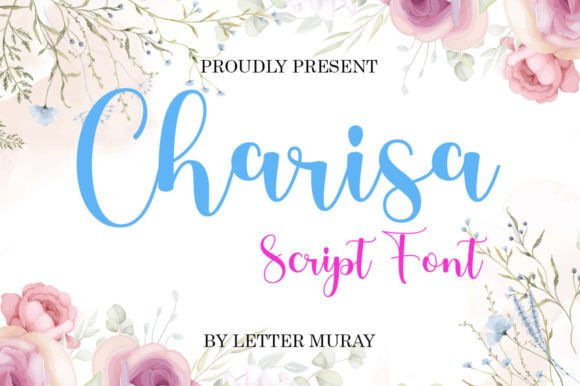
Introducing Charisa Font: The Epitome of Elegance and Versatility
In the realm of typography, few fonts manage to strike a balance between elegance, delicacy, and versatility. Charisa Font is one such gem that has captured the hearts of designers and crafters alike. This exquisite handwritten font is characterized by its flowing lines, beautiful characters, and impressive range of applications. In this article, we’ll delve into the world of Charisa Font, exploring its features, benefits, and uses, as well as provide valuable insights for designers and crafters looking to elevate their creative projects.
The Beauty of Charisa Font
Charisa Font is a delicate, elegant, and flowing handwritten font that exudes sophistication and refinement. Its well-balanced characters are meticulously crafted to create a harmonious visual experience, making it an ideal choice for a wide range of design projects. Whether you’re working on a wedding invitation, a branding campaign, or a digital platform, Charisa Font is sure to impress.
One of the standout features of Charisa Font is its PUA (Private Use Area) encoding. This means that users can access a vast array of glyphs and swashes with ease, allowing for greater creative flexibility and customization. With Charisa Font, you can add a personal touch to your designs, making them truly unique and eye-catching.
Key Features of Charisa Font
• Delicate and elegant design: Charisa Font boasts a refined, handwritten aesthetic that’s perfect for designs that require a touch of sophistication.
• Well-balanced characters: Each character is carefully crafted to ensure a harmonious visual experience, making it easy to read and visually appealing.
• PUA encoded: Access a wide range of glyphs and swashes with ease, allowing for greater creative flexibility and customization.
• Versatile: Charisa Font is suitable for a wide range of design projects, from wedding invitations and branding campaigns to digital platforms and more.
Charisa Font offers numerous benefits for designers and crafters looking to elevate their creative projects. Some of the key advantages include:
• Time-saving: With Charisa Font, you can create stunning designs quickly and efficiently, saving you time and effort.
• Unique and eye-catching designs: The font’s elegant and flowing design ensures that your creations stand out from the crowd.
• High-quality: The font is crafted with attention to detail, ensuring a high-quality visual experience.
Tips for Using Charisa Font
To get the most out of Charisa Font, here are some valuable tips:
• Experiment with different sizes and colors: Charisa Font looks stunning in various sizes and colors, so don’t be afraid to experiment and find the perfect combination for your design.
• Pair with complementary fonts: Combine Charisa Font with complementary fonts to create a visually appealing and harmonious design.
• Use swashes and glyphs: Take advantage of Charisa Font’s PUA encoding and add a personal touch to your designs with swashes and glyphs.
• Keep it simple: Don’t overcomplicate your design. Charisa Font’s elegance and simplicity shine when used in a clean and minimalist design.
Charisa Font is a true gem in the world of typography, offering a unique blend of elegance, delicacy, and versatility. With its beautiful and well-balanced characters, PUA encoding, and wide range of applications, it’s an ideal choice for designers and crafters looking to elevate their creative projects. By following the tips outlined in this article, you can unlock the full potential of Charisa Font and create stunning designs that leave a lasting impression.